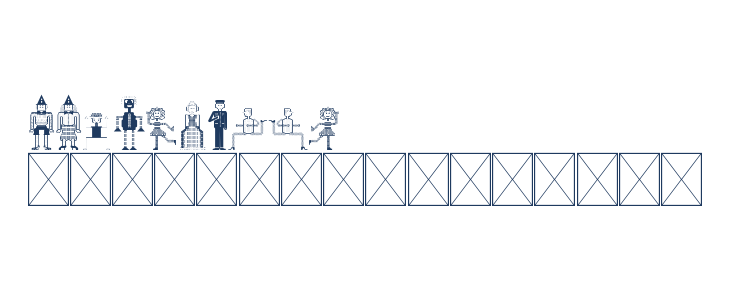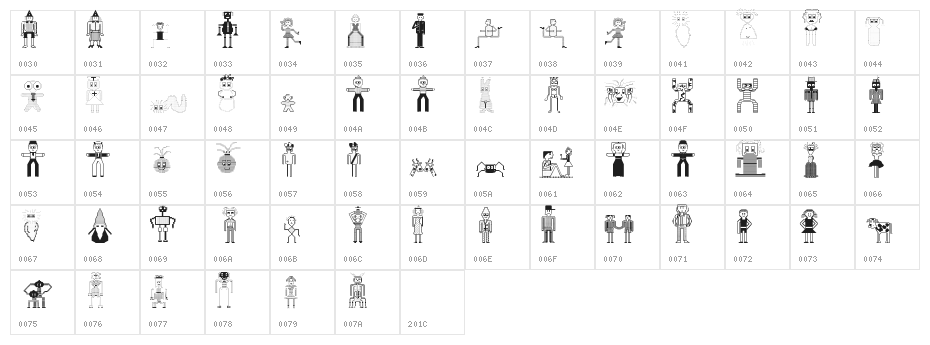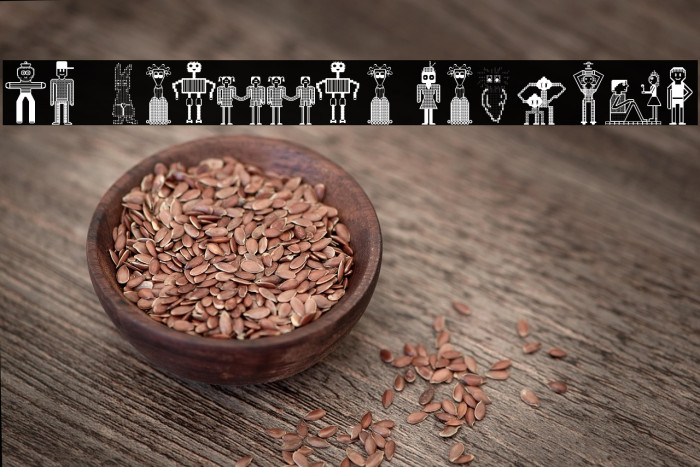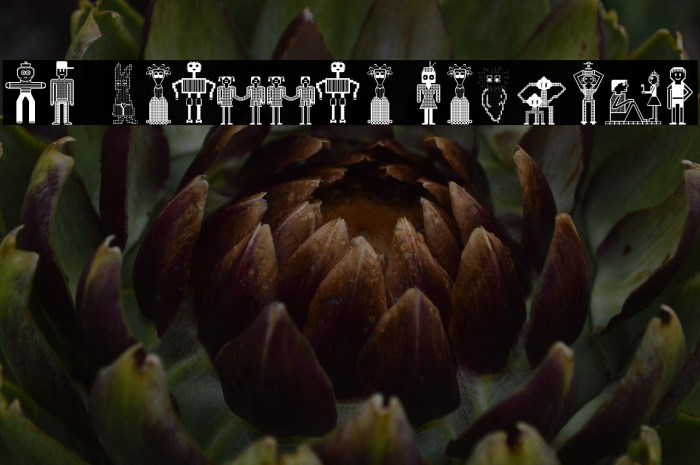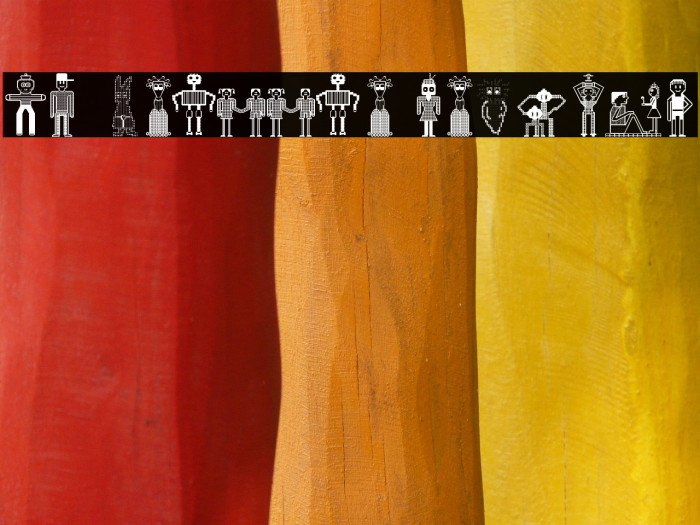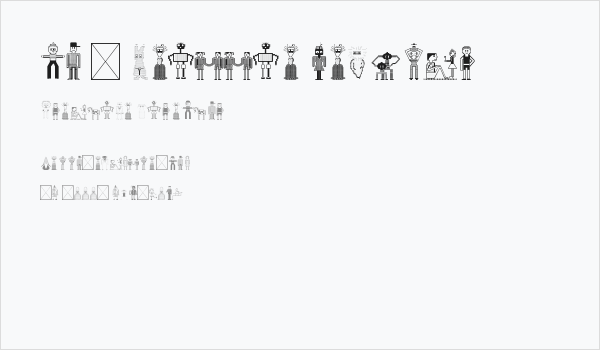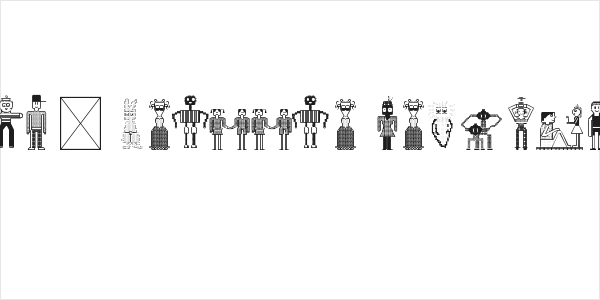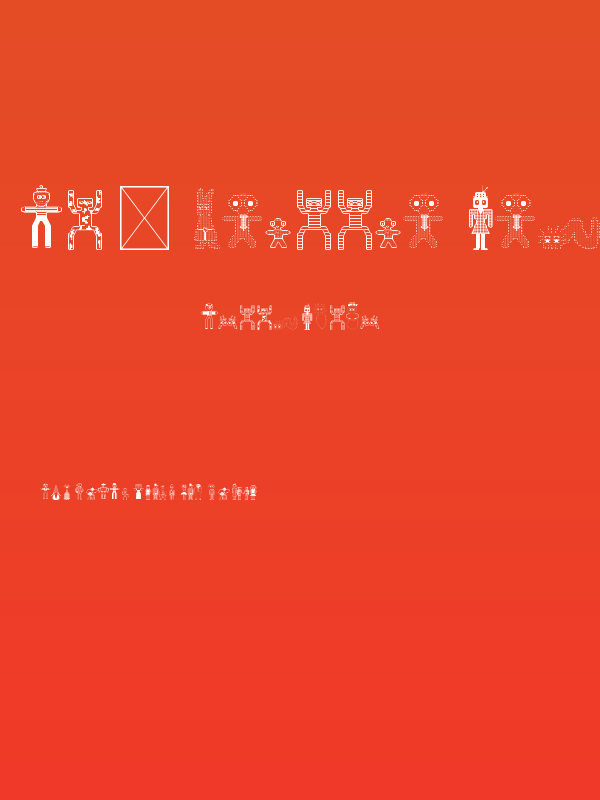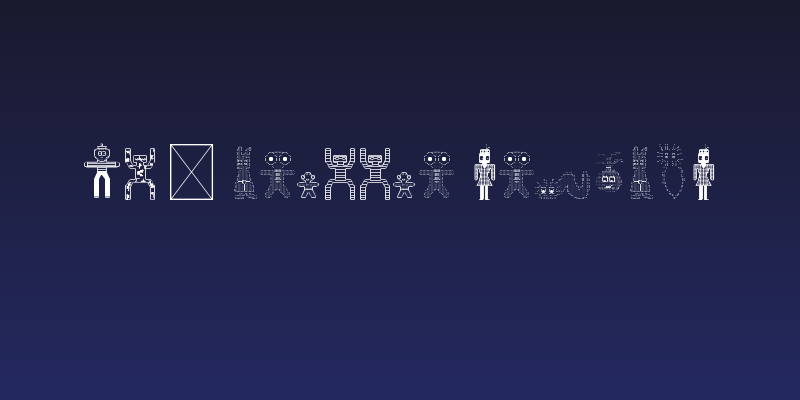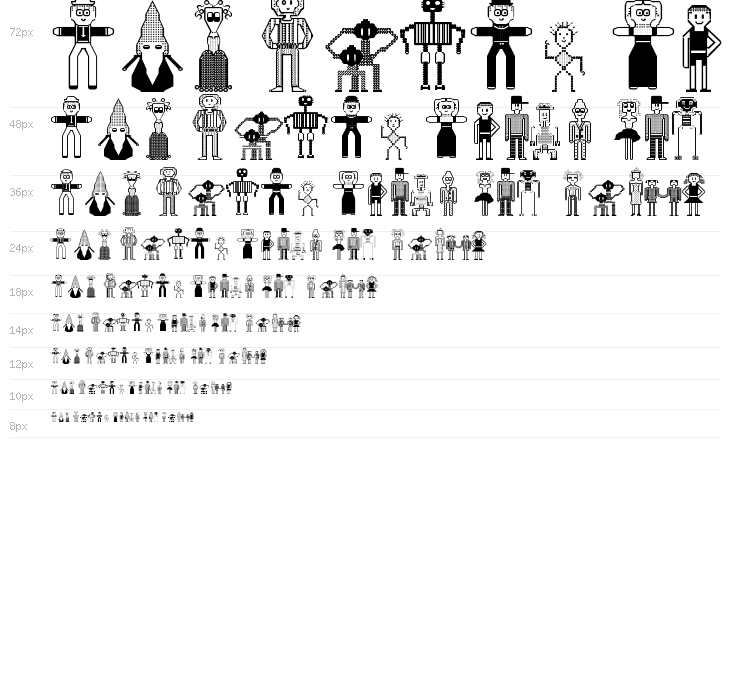
Ko & Leippie Regular Font
Ko & Leippie Regular Description
This is not a valid font. The image contains a series of pixel art characters and figures, each uniquely designed with a playful and whimsical style. The characters are composed of simple geometric shapes and patterns, creating a retro, digital aesthetic reminiscent of early computer graphics or video game sprites. The figures vary widely, depicting a range of human-like and abstract forms, each with distinct features and expressions. The overall composition is more illustrative and artistic rather than typographic.
| Overall Style | Retro, Digital, Playful |
| Use Case | Illustrations, Digital Art, Video Game Graphics |
| Proposed Projects | This style could be used for retro video game graphics, digital art projects, or playful illustrations. |